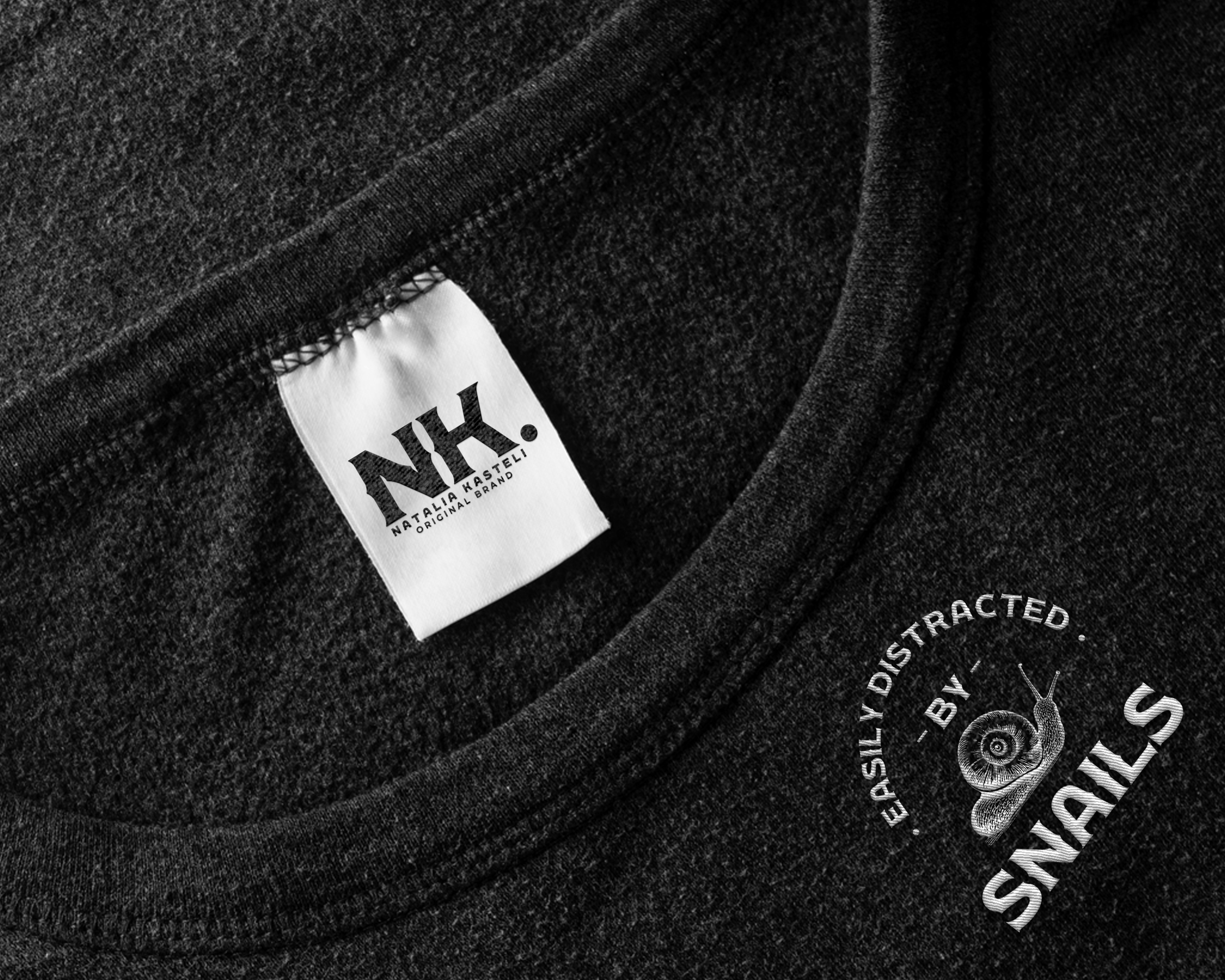
The Kong font is back with a new type of embroidery font. Castha Embroidery Display Font was created to increase the variety of options available to Embroidery font users. Of course, this is an advantage for you, because the font you use will not be monotonous. The Kong font provides two types of Castha Embroidery Display Font, Embroidery font, and digital fonts. It can be used as embroidery on various items and can also be used as a complement to various digital containers.
Castha Embroidery Display Font has characteristics upright shape, easy to distinguish between letters, and there is no addition to it. It can be said that this font is included in the legible font because based on the characteristics that call it clean, it can be concluded that. However, this still carries the impression that is usually attached to embroidery fonts, namely simple, clean, and modern.
Given the exciting characteristics it has created, Castha Embroidery Display Font is one of the best fonts to use on hats, T-shirts, jackets, and hoodies. In addition, it is suitable to be combined with several of your lovely products, such as stickers for televisions, motorcycles, cars, and bicycles. Font Kong provides Embroidery font for digital and print use. Both of them will not eliminate the element of cool and modernity posed by Castha Embroidery Display Font.